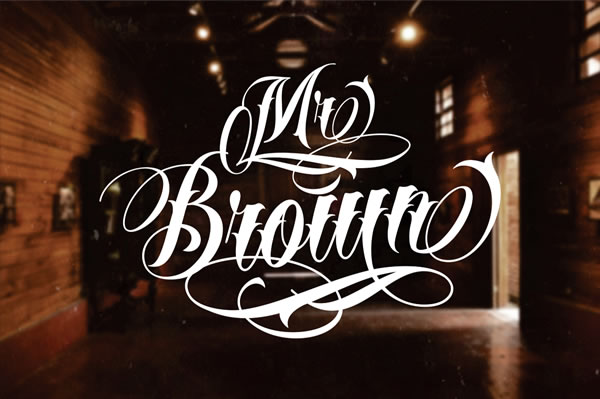
Introducing Mr Brown Font—the captivating script font that will add a touch of elegance and charm to your creative projects! Let your imagination soar with this exquisite font, crafted by the talented hands at VMF Font.
Mr Brown Font is a visual masterpiece, designed to evoke a sense of authenticity and artistry. Its graceful curves and elegant swashes dance across the page, capturing the essence of timeless beauty. Whether you're a seasoned designer or just starting your creative journey, Mr Brown Font will elevate your work to new heights.
Immerse yourself in the world of art and expression with Mr Brown Font. Its delicate strokes and intricate details will add a personal touch to your designs, making them stand out from the crowd. From wedding invitations and logos to social media posts and branding materials, Mr Brown Font is the perfect choice for adding a touch of sophistication and flair.
Unlock your creativity and unleash your inner artist with Mr Brown Font. Its versatility knows no bounds, allowing you to explore a wide range of design possibilities. Craft stunning logos that exude professionalism, create eye-catching social media graphics that captivate your audience, or design unforgettable invitations that leave a lasting impression.
Don't settle for ordinary fonts. Embrace the beauty and elegance of Mr Brown Font and let your designs shine. Join the creative revolution and experience the transformative power of this remarkable font.